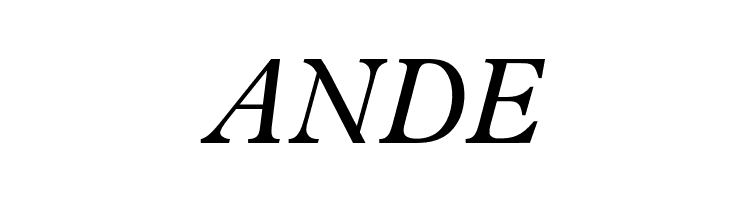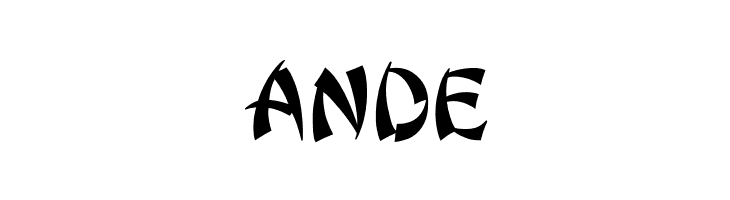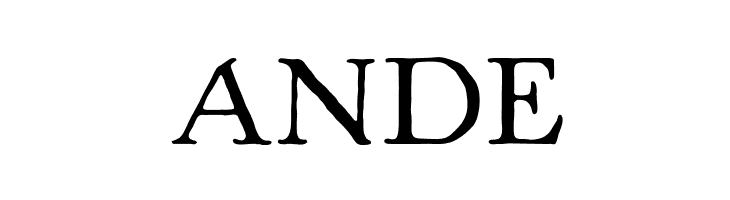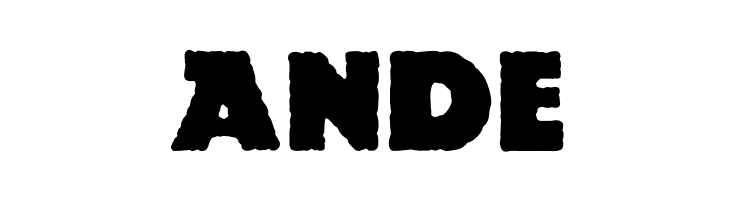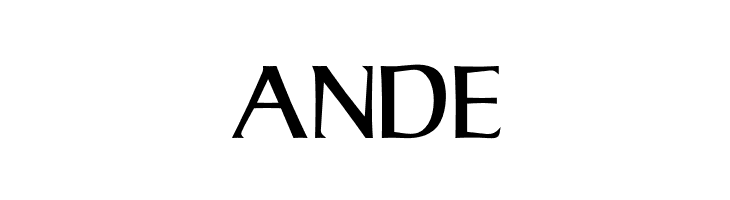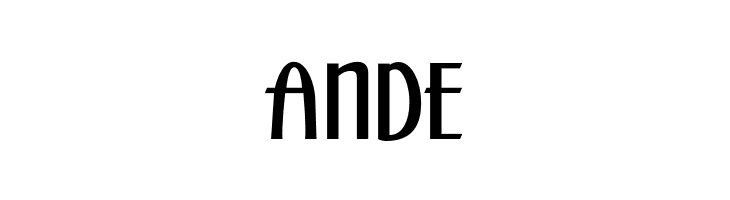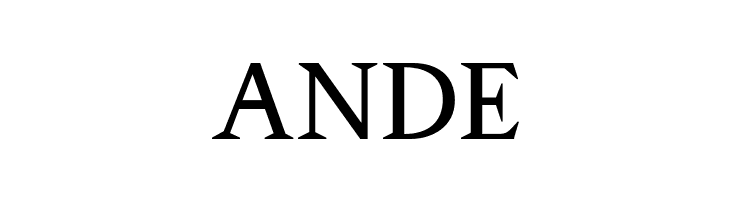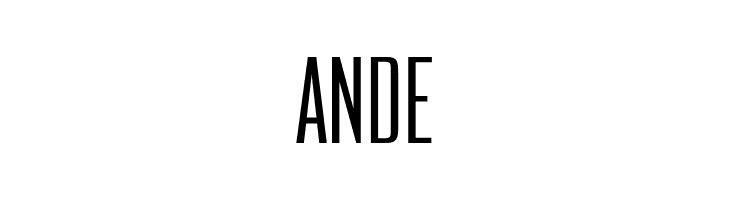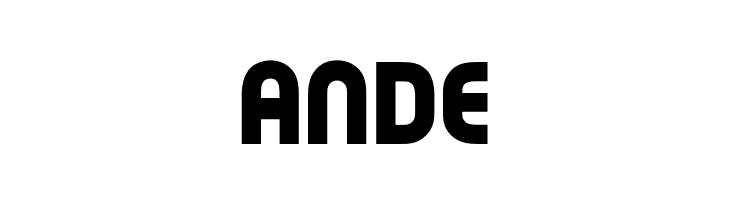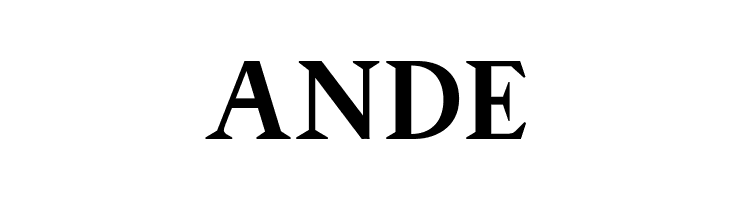
A classic serif font with elegant strokes and balanced numerals.
A bold serif typeface with sharp serifs and a classic, authoritative style.
A classic serif font with elegant strokes and medium contrast, ideal for traditional and sophisticated designs.
A bold, high-contrast font with sharp, angular strokes and a calligraphic influence.
A bold, decorative font with high contrast and intricate details.
A bold, condensed font with strong vertical emphasis, perfect for headlines.
A bold, modern typeface with strong, thick strokes and a clean, contemporary style.
A modern sans-serif font with clean lines and balanced proportions.
A tall, narrow, and modern font with consistent stroke width.
A sleek, italicized font with narrow, elongated characters and medium contrast.
A modern sans-serif font with a clean, geometric design and slightly condensed letterforms.
A bold, impactful font with strong, thick strokes and a modern appearance.
A bold, modern font with thick strokes and geometric shapes, perfect for impactful designs.
A playful dotted font with a modern, decorative style.
A tall, narrow font with a modern, art deco-inspired design.
A sophisticated italic font with flowing, cursive-like characters.
A bold, high-contrast serif font with a modern twist.
A classic serif font with elegant strokes and a modern touch.
A bold serif font with strong strokes and high contrast, perfect for impactful designs.
A bold, italic serif font with strong, dynamic strokes and pronounced serifs.
An elegant italic serif font with a classic and sophisticated style.
A classic serif font with elegant, refined strokes and a light weight.
A refined, light, and italic serif font with classic elegance.
A modern vintage font with tall, narrow letterforms and art deco influences.
A bold, rounded font with a modern and playful style.
An elegant and classic font with bold uppercase and dynamic lowercase letters.
A classic serif font with high contrast and a compressed, elegant style.
A classic serif font with elegant strokes and a traditional, timeless appeal.
A classic serif font with a modern twist, offering elegance and readability.
A bold, high-contrast serif font with a modern yet classic appeal.
A bold, multi-line decorative font with geometric patterns.
A bold, high-contrast serif font with elongated characters and sharp serifs.
A bold, textured font with a vintage, rugged appearance.
A bold, playful font with irregular, dynamic shapes.
A bold serif font with a modern flair and elegant curves.